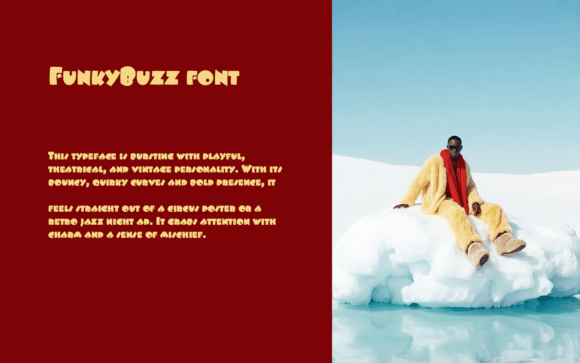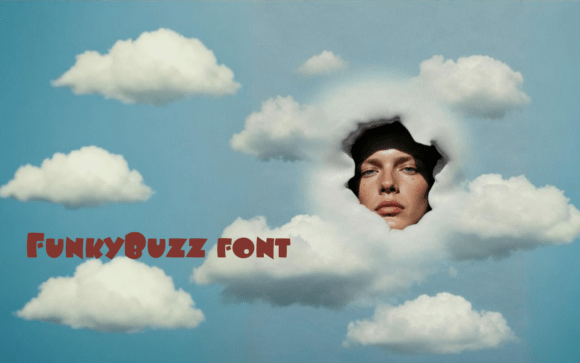
Let the Fun Begin with FunkyBuzz – The Font That Dances on the Page!
Are you tired of using the same old fonts in your designs? Do you want to add a dash of energy and playfulness to your work? Look no further than FunkyBuzz, the font that’s sure to bring a smile to everyone’s face! With its retro soul and comic twist, FunkyBuzz is the perfect choice for designers and crafters who want to make their message bounce and leave a lasting impression.
What is FunkyBuzz?
FunkyBuzz is a unique and vibrant font that’s designed to add a touch of fun and whimsy to any design. Its retro-inspired letters are reminiscent of classic comic books and cartoons, while its bold and playful style is sure to grab attention. Whether you’re working on a poster, packaging, or party theme, FunkyBuzz is the perfect choice to add some personality and flair to your work.
The Benefits of Using FunkyBuzz
So why choose FunkyBuzz over other fonts? Here are just a few benefits of using this fantastic font:
- Energy and Playfulness: FunkyBuzz is designed to bring energy and playfulness to your designs. Its bold and vibrant style is sure to grab attention and leave a lasting impression.
- Retro Soul: With its retro-inspired letters, FunkyBuzz is perfect for designers who want to add a touch of nostalgia to their work.
- Versatility: FunkyBuzz is a versatile font that can be used in a variety of design applications, from posters and packaging to party themes and more.
- Easy to Read: Despite its playful style, FunkyBuzz is easy to read and understand, making it perfect for designs where you want to communicate a message quickly and effectively.
How to Use FunkyBuzz in Your Designs
Using FunkyBuzz in your designs is easy! Here are a few tips to get you started:
- Pair it with Other Fonts: FunkyBuzz looks great when paired with other fonts, such as bold sans-serifs or elegant scripts. Experiment with different combinations to find the perfect look for your design.
- Use it for Headlines: FunkyBuzz is perfect for headlines and titles, where its bold and playful style can really shine.
- Add some Color: FunkyBuzz looks great in bold, bright colors. Experiment with different color schemes to find the perfect look for your design.
FunkyBuzz is perfect for designers and crafters who want to add a touch of fun and personality to their work. Whether you’re working on a client project or a personal craft, FunkyBuzz is sure to bring a smile to everyone’s face. Here are just a few ways you can use FunkyBuzz in your designs:
- Posters and Flyers: FunkyBuzz is perfect for posters and flyers, where its bold and playful style can really grab attention.
- Packaging: Add some personality to your packaging with FunkyBuzz. Its retro-inspired letters are sure to stand out on store shelves.
- Party Themes: FunkyBuzz is perfect for party themes, where its playful style can add a touch of whimsy and fun.
In conclusion, FunkyBuzz is a fantastic font that’s sure to bring energy and playfulness to your designs. With its retro soul and comic twist, it’s perfect for designers and crafters who want to add a touch of fun and personality to their work. Whether you’re working on a poster, packaging, or party theme, FunkyBuzz guarantees smiles before words. So why wait? Let the fun begin with FunkyBuzz – the font that dances on the page!